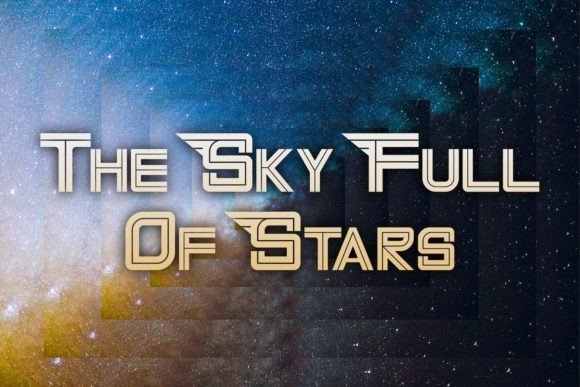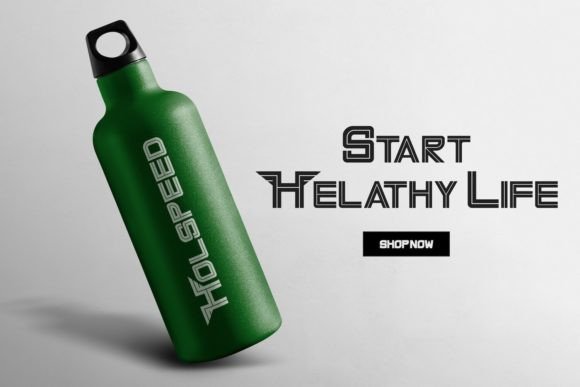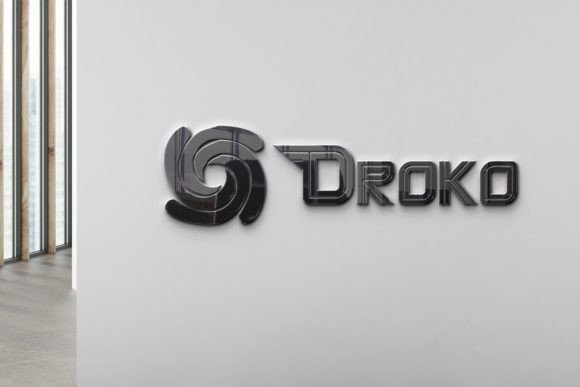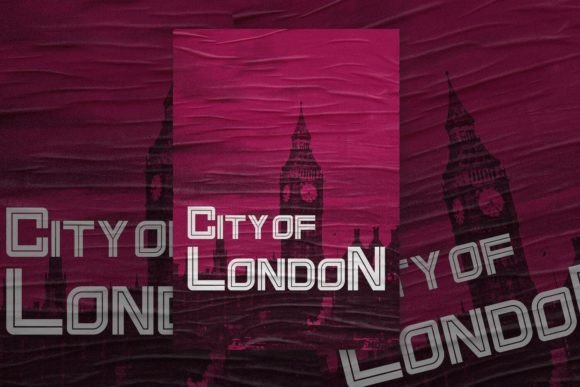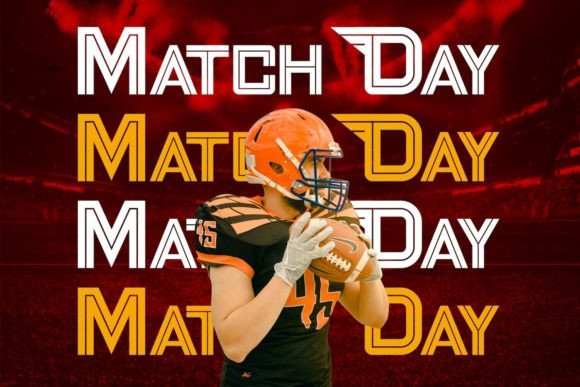
Unlock the Power of Modern Design with Armygedon Font
Have you ever stared at a blank canvas, desperate for inspiration to strike? That’s where the magic happens. As designers, we’ve all been there – searching for the perfect font to elevate our projects and leave a lasting impression. And that’s exactly what Armygedon Font is designed to do. This modern, futuristic sans font is packed with a bold army feel that’s sure to add a contemporary update to any design project.
Whether you’re working on a tech startup’s branding or a sci-fi themed video game, Armygedon Font is the perfect choice. Its techno feel makes it ideal for titles, subtitles, and much more. What sets Armygedon Font apart is its versatility – it’s not just a font, it’s a statement piece that’s sure to turn heads.
- Font Family: Armygedon Font is a sans-serif font family with 6 weights, ranging from Light to Black.
- Unique Characteristics: Features a distinctive, futuristic design with geometric shapes and sharp lines, making it suitable for tech-related and futuristic designs.
As a designer, I was excited to dive into the Armygedon Font, a futuristic and edgy sans-serif font. Overall, I was impressed by its unique features and potential applications.
- ✨ Unique and futuristic design that stands out in digital and print media.
- ✨ Highly legible, even at small font sizes, making it suitable for a wide range of applications.
- ✨ Offers a range of weights and styles, allowing for flexibility in design projects.
- ⚠️ The font may be too bold or overpowering for some design projects, requiring careful balancing to avoid overwhelming the viewer.
- ⚠️ The font’s futuristic feel may not be suitable for all audiences or industries, requiring careful consideration of the target market.
Overall, I think the Armygedon Font is a great addition to any designer’s toolkit. While it may have some limitations, its unique design and versatility make it a valuable resource for projects that require a bold, futuristic feel.
For best results, use Armygedon font for titles and headings to add a touch of industrial chic to your designs.
Use Armygedon font to add a rugged, industrial feel to your graphics and illustrations.
Use Armygedon font to add a touch of industrial chic to your presentations and documents.
Armygedon font is perfect for:
- Industrial and manufacturing designs
- Retro and vintage-inspired designs
- Grungy and distressed designs
Bangers is a bold, graffiti-inspired font that works well for headings and titles. It’s ideal for adding a touch of edginess to your designs. Compared to Armygedon Font, Bangers is more playful and has a stronger emphasis on bold, expressive lines.
Great Vibes is a script font with a laid-back, tropical vibe. It’s perfect for creating a relaxed, summer feel in your designs. While Armygedon Font has a more aggressive, distressed look, Great Vibes is softer and more elegant.
Pacifico is a beautiful, elegant script font with a beachy, laid-back feel. It’s ideal for creating a warm, inviting atmosphere in your designs. Compared to Armygedon Font, Pacifico is more refined and has a softer, more delicate look.
Dancing Script is a fun, energetic script font that’s perfect for adding a touch of whimsy to your designs. It’s ideal for titles, headings, and other elements where you want to create a sense of movement and excitement. While Armygedon Font has a more aggressive, distressed look, Dancing Script is more playful and carefree.
Unleashing Creativity with Armygedon Font